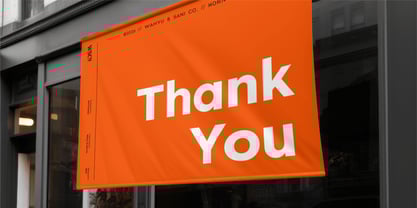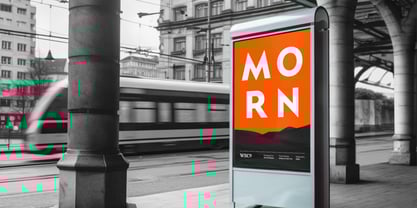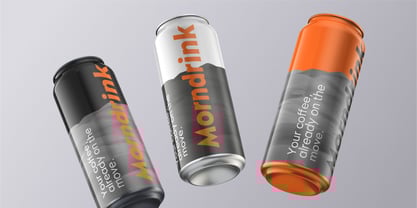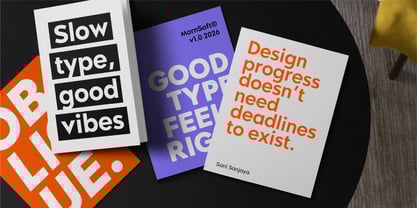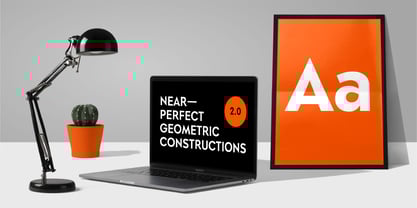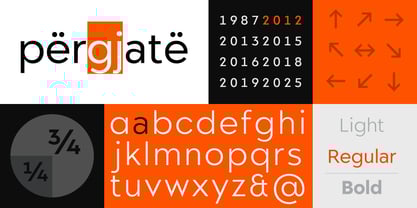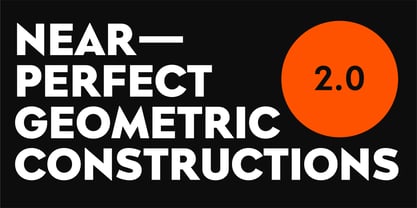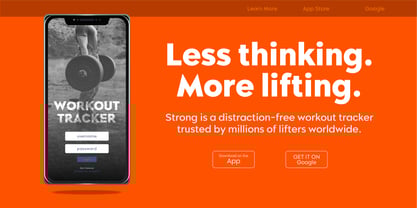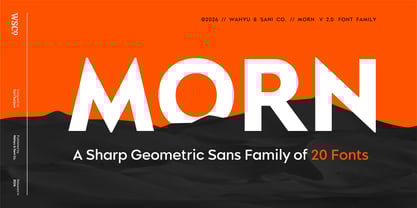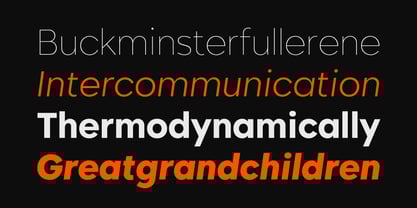
Die Schriftfamilie Morn wurde von Sani Sanjaya entworfen und von Wahyu and Sani Co. veröffentlicht. Morn enthält 22 Stile und Familienpaketoptionen.
Morn 2.0 is a contemporary sans serif family comprising 20 fonts plus 2 variable fonts. Designed with a balance of geometric structure and optical refinement, Morn delivers clarity and versatility across diverse design environments. The family spans a wide range of weights from Thin to Extra Black, allowing precise control over typographic tone and hierarchy. Available in both Roman and Italic styles, Morn offers flexible typographic expression for editorial, branding, digital interfaces, and display applications. Version 2.0 introduces refined letterforms, improved spacing, a new double-storey lowercase "a" alternate, and additional characters that further strengthen its usability and performance.
Morn